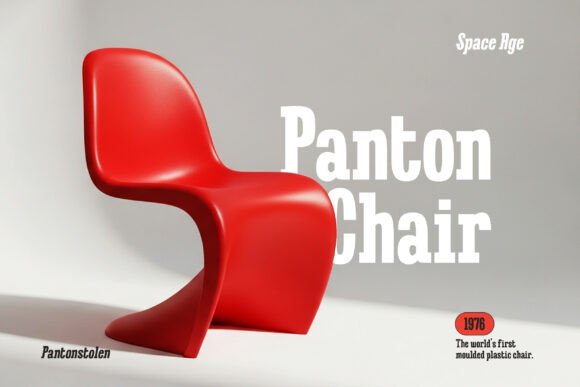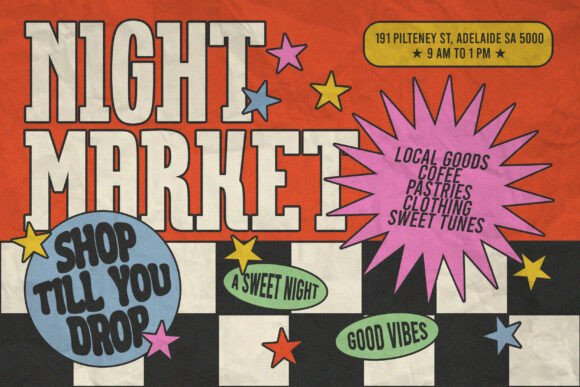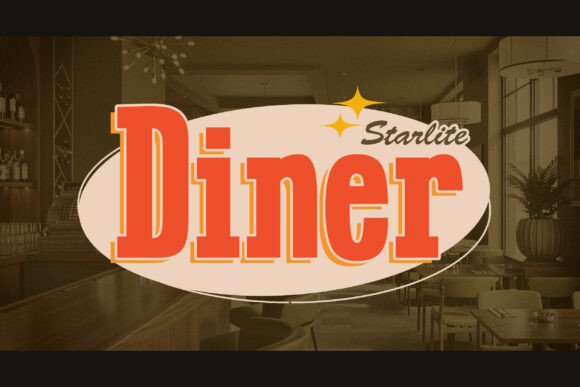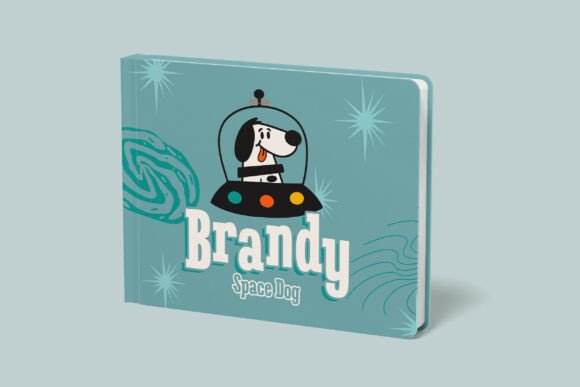
Introduction to Royal Orbit Font
Venture back to yesteryears as you bask in the vintage allure of Royal Orbit, a signature Mid-Century Style Retro typeface.
Its unique appeal and striking aesthetics are particularly suited for display settings, offering a captivating visual journey Beyond its head-turning look, Royal Orbit also boasts a remarkable versatility, melding effortlessly with other traditional script typefaces.
Royal Orbit Font offers exceptional quality and versatility, making it a valuable addition to your design toolkit. Whether you’re creating for personal projects or commercial use, Royal Orbit Font delivers professional results.